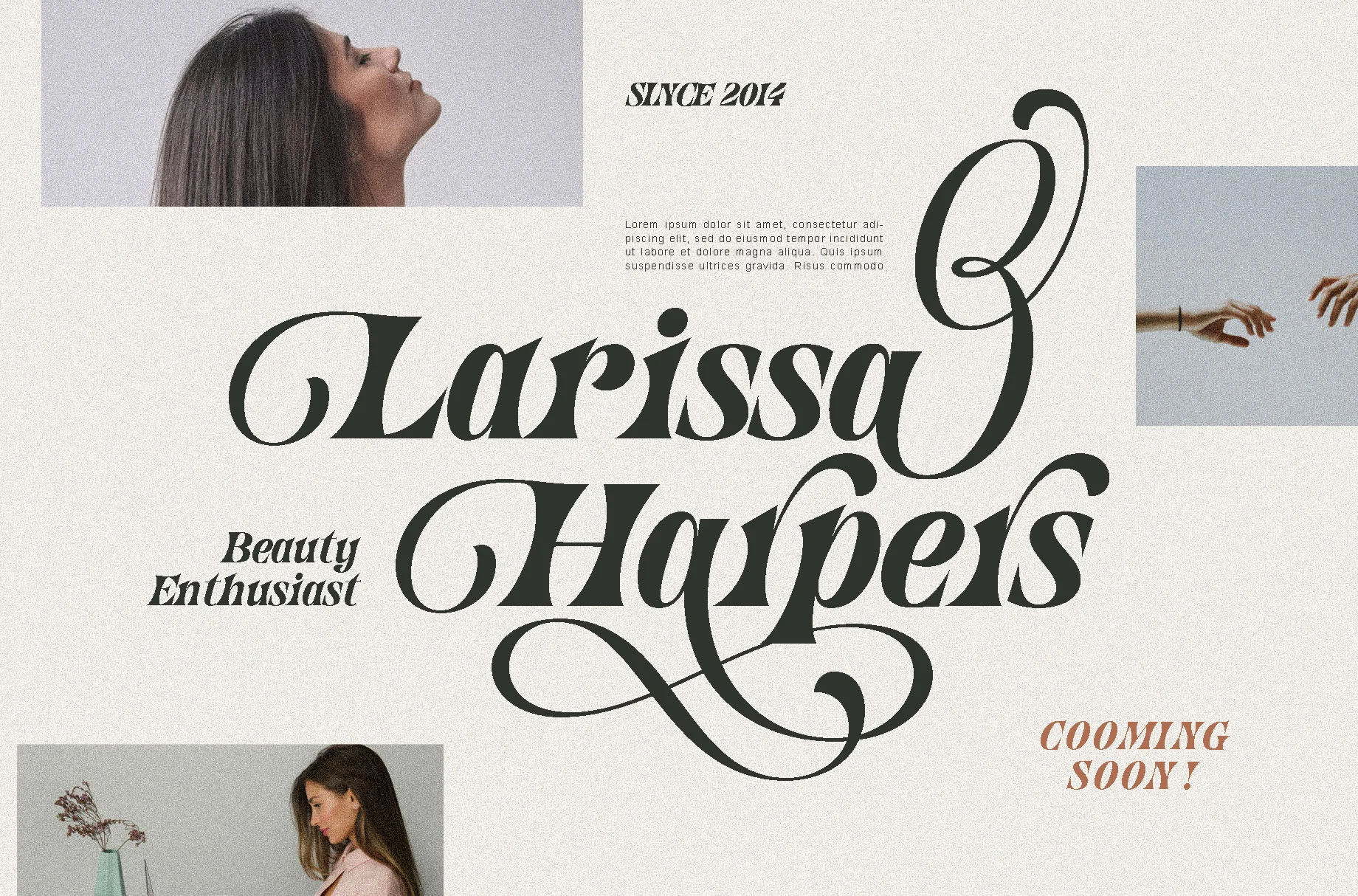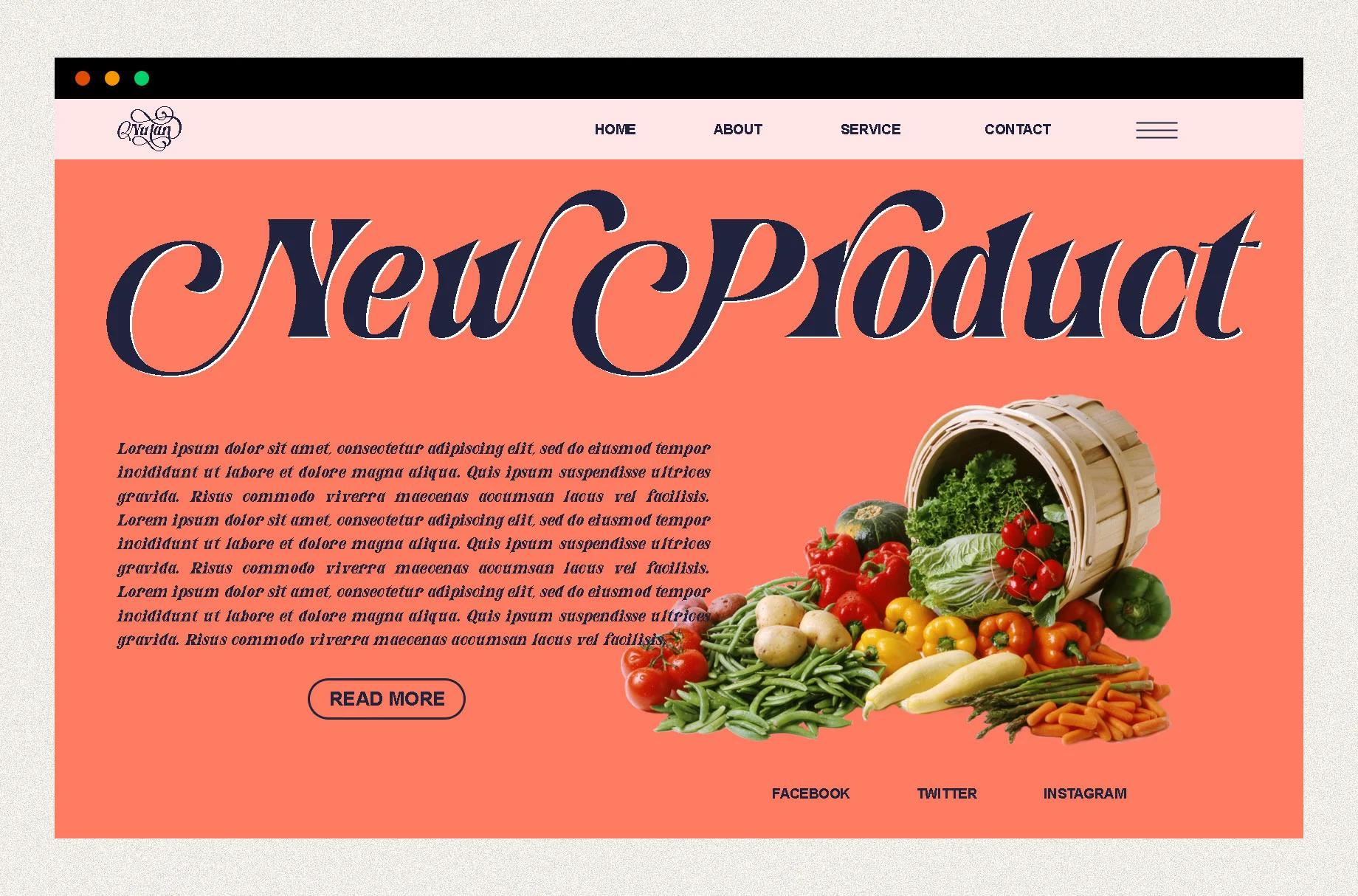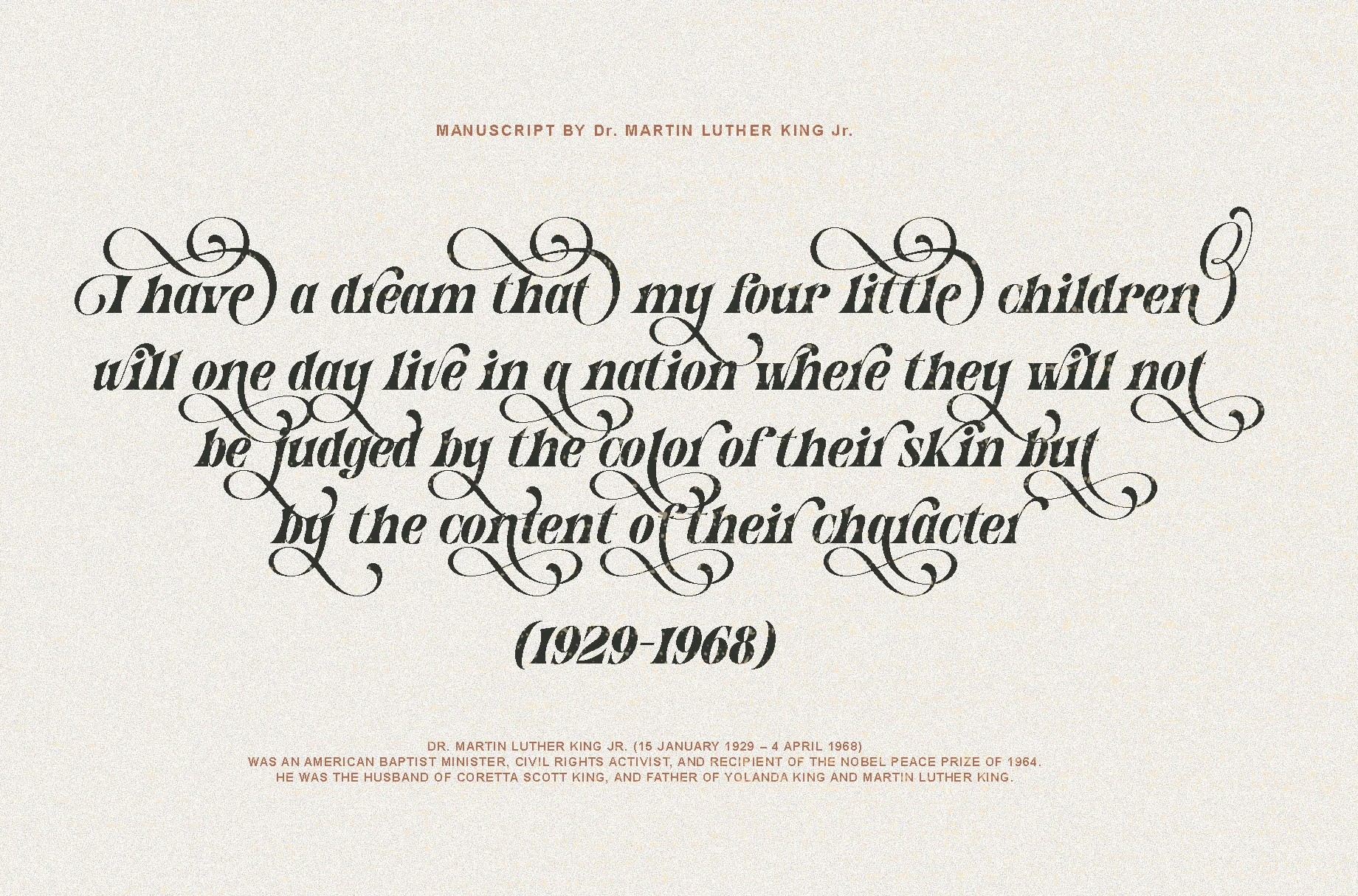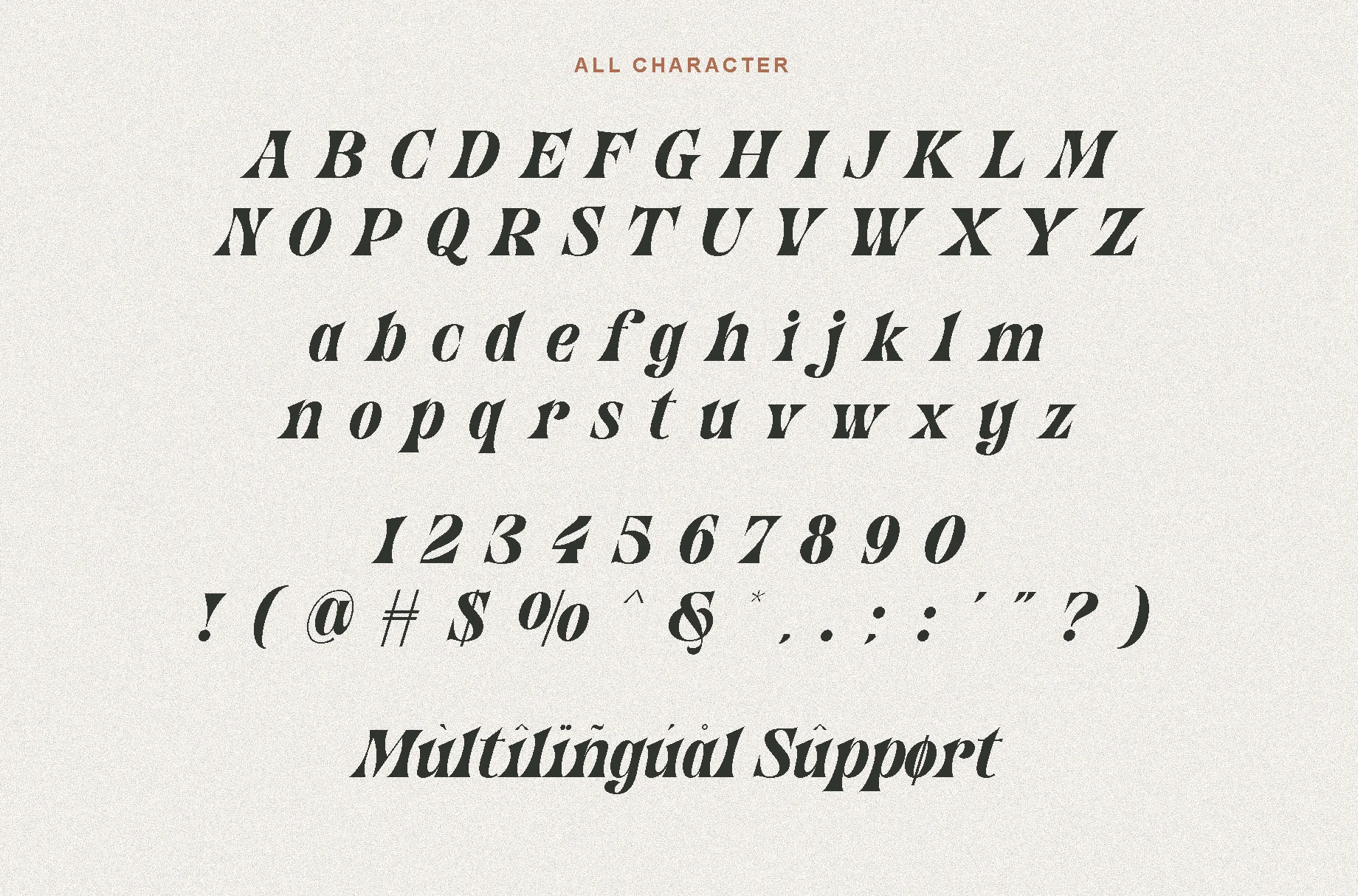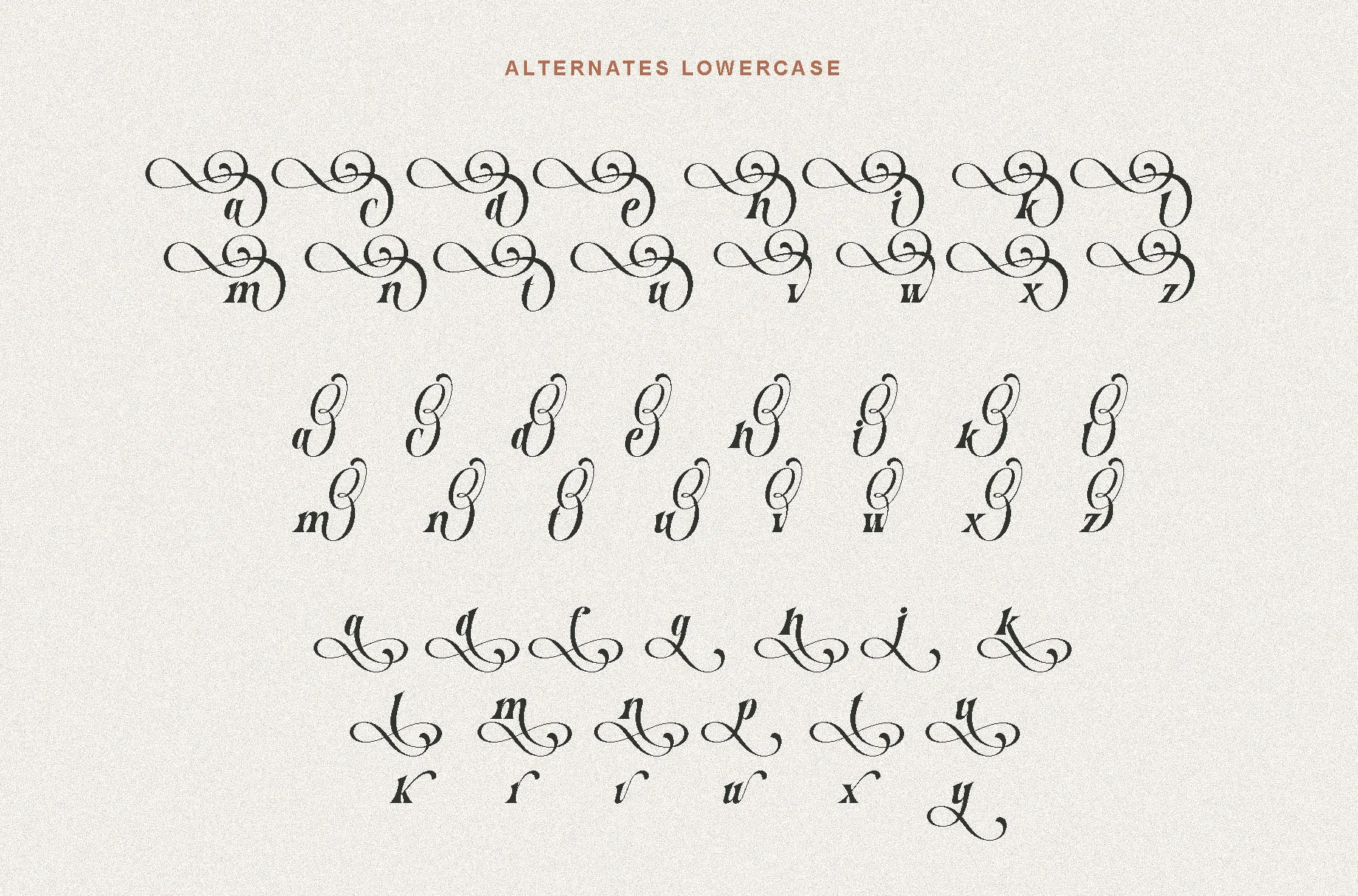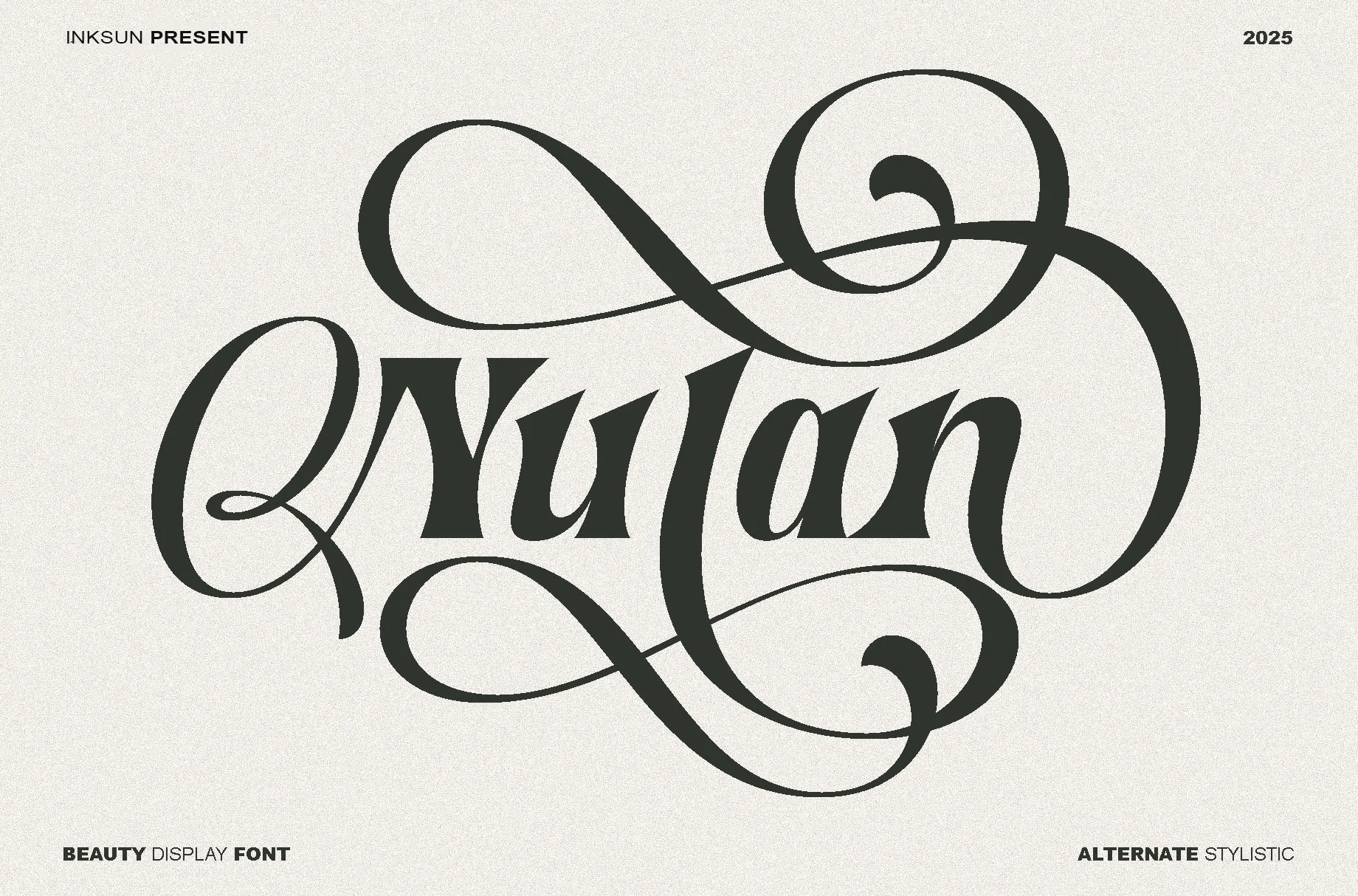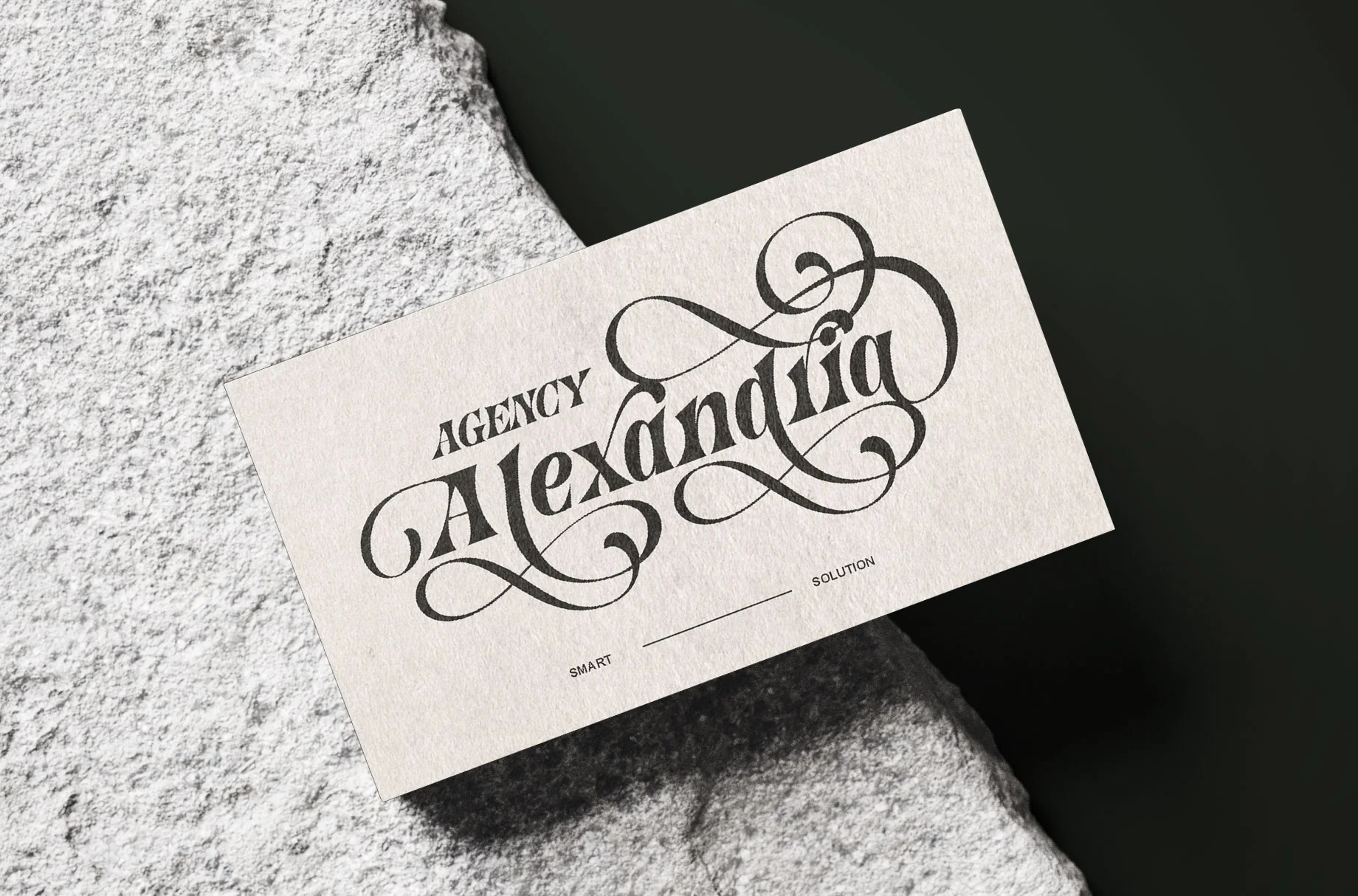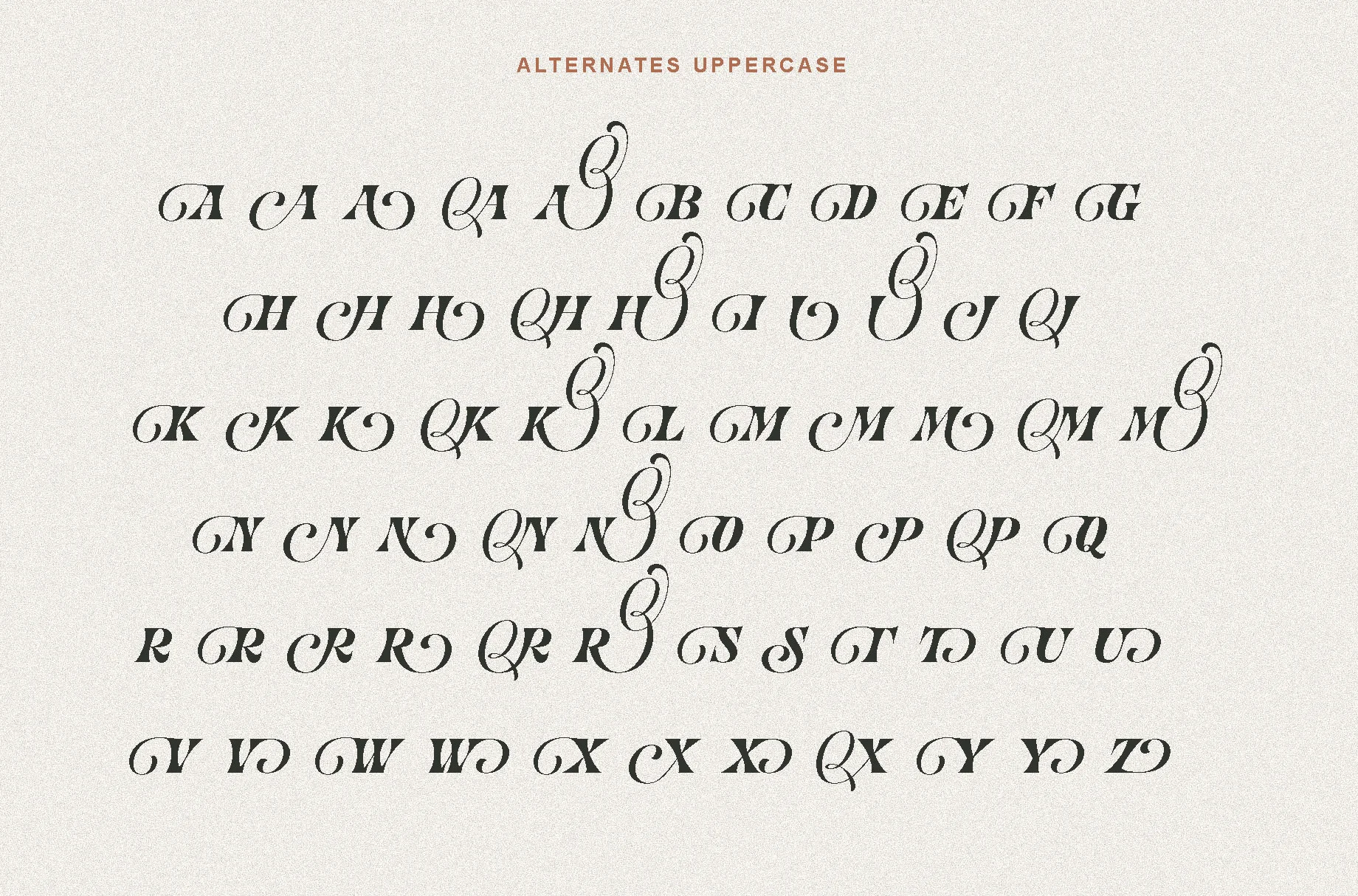
Nulan
**Nulan** is a stylish font It has both modern and Vintage look. Create bold, gorgeous headlines and elegant designs with a vintage flair.The **Nulan** font is perfect for various projects like logos & branding, invitations, stationery, wedding designs, social media posts, advertisements, printed quotes, product packaging, product designs, labels, photography, watermarks, special events or anything else.
**Nulan** is also included full set of:
* uppercase and lowercase letters
* multilingual support full latin simple language
* numerals
* punctuation
* Stylistic Set
* Alternate